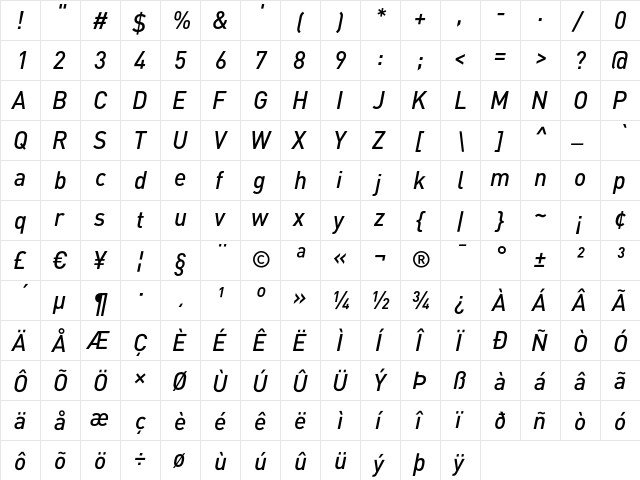
DIN-MediumItalic Regular Font Preview
DIN-MediumItalic Regular
Design Context for DIN-MediumItalic Typeface
DIN-MediumItalic is a composed and adaptable typeface that performs quietly and consistently across a wide range of design contexts. The dynamic lean of this cut emphasises speed and emphasis in any layout.
Pro Tip: Try DIN-MediumItalic for annotation and caption copy alongside an upright companion — the contrast in angle creates a dynamic but ordered typographic system.